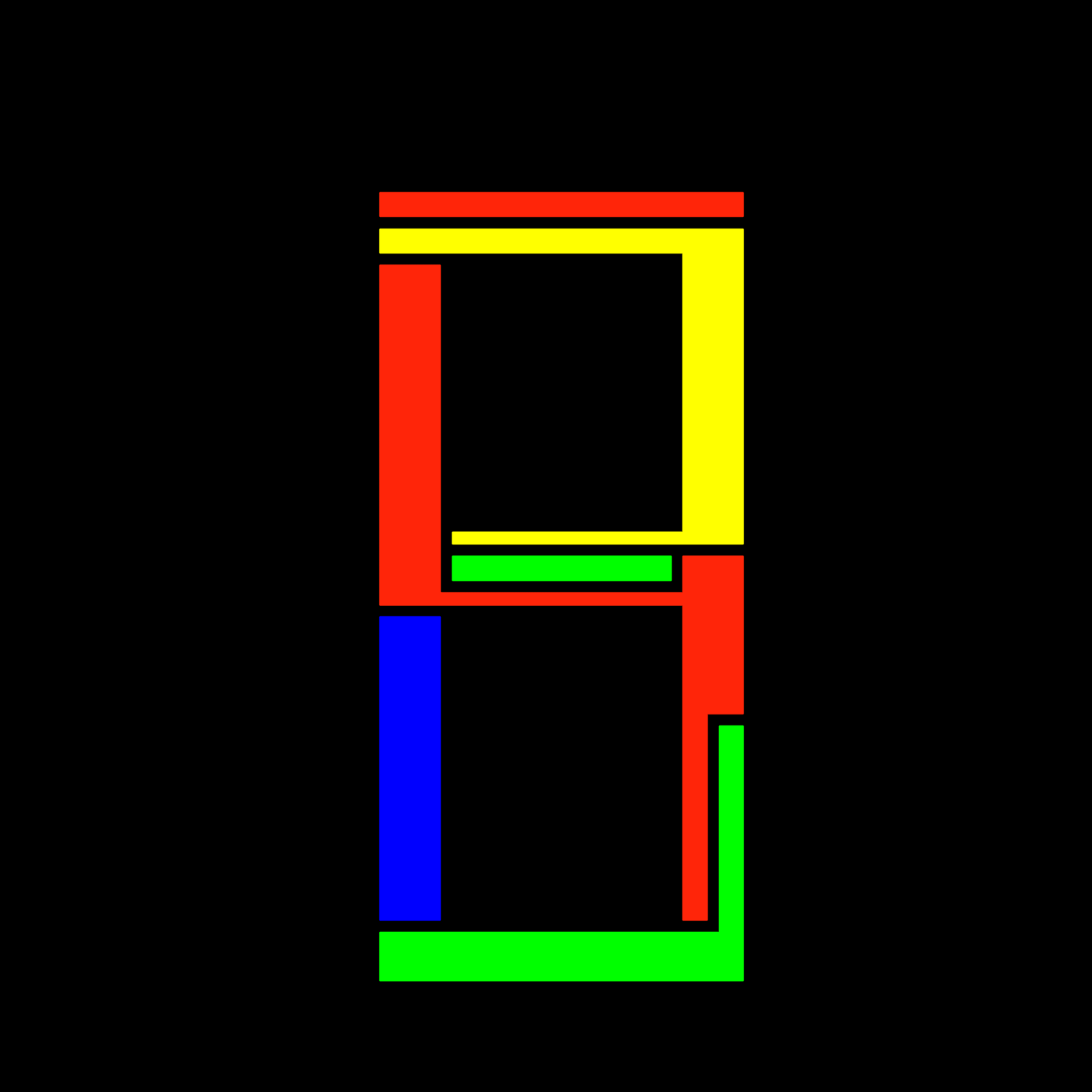
Cool concept, but this is actually a 6 segment display.
@CPU_099 here's the comment by goatmeal that said this before you - it contained a sample that got lost.
in reality, there are 2 pairs of segments that work as one (discontinuous segments)
@CPU_099: One color: One segment